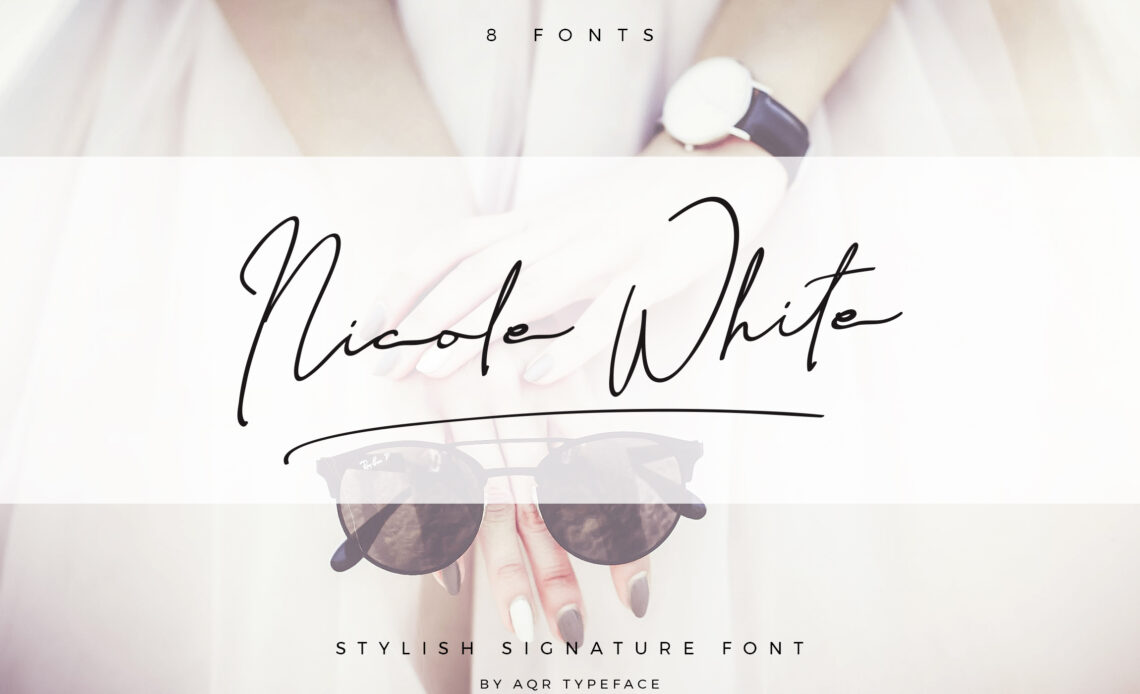
Behold the captivating Nicole White Font, a script typeface that exudes beauty and sophistication. Created by the renowned Aqr Typeface, this font is a harmonious blend of elegance and versatility, inviting you to embark on a creative journey like no other. With its flowing lines and delicate curves, Nicole White will transform your designs into captivating masterpieces.
Immerse yourself in the world of Nicole White and discover a font that is as versatile as it is captivating. Whether you're designing wedding invitations, branding materials, or social media posts, Nicole White will elevate your projects with a touch of grace and charm. Its whimsical nature adds a touch of playfulness, while its refined strokes evoke a sense of timeless elegance.
Unleash your creativity and explore the endless possibilities of Nicole White. Experiment with different colors and styles to see how this versatile font can bring your ideas to life. Let your imagination soar as you create designs that are both visually stunning and deeply engaging. With Nicole White, your creative expressions will shine brighter than ever before.
Welcome to a world where fonts are not just letters, but rather works of art. Nicole White is more than just a typeface; it's an invitation to embark on a creative odyssey, transforming your designs into unforgettable experiences. Embrace the beauty of Nicole White and witness the astounding transformation of your creative vision.